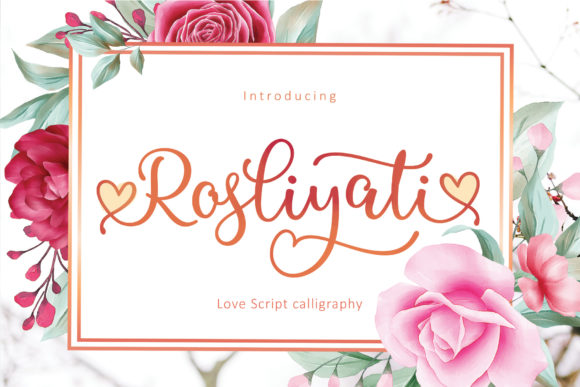
Introducing Rosliyati Font – A Poetic Script, Crafted with Love for Every Occasion
Immerse yourself in the beauty of Rosliyati, a captivating script font family designed to evoke a sense of charm and elegance in every design it graces. Inspired by the art of love, Rosliyati embodies romance, making it the perfect choice for wedding invitations, thank you cards, and heartfelt quotes. With its stunning presence, witness your designs come alive as Rosliyati's delicate strokes and flowing lines transform them into mesmerizing works of art.
Rosliyati's versatility extends beyond love letters, making it a versatile tool for greeting cards, logos, and business cards. Its handwritten touch adds a personal and inviting charm, captivating your audience with its exquisite aesthetics. The PUA encoding of this font unlocks a world of possibilities, allowing you to access all of its glyphs and swashes with ease, empowering you to create designs that are uniquely yours.
Experience the allure of Rosliyati's varying baseline, where each letter dances gracefully, creating a dynamic and visually appealing text. Its smooth lines glide effortlessly across the page, harmonizing with the gorgeous glyphs and stunning alternates, adding a touch of sophistication to your designs. With Rosliyati, your words will resonate with an emotional depth that captivates the hearts of your readers, leaving a lasting impression that lingers long after they've turned the page.
Unleash the power of Rosliyati and let your designs blossom with beauty and elegance. Its versatility knows no bounds, making it the perfect companion for designers seeking to create captivating wedding invitations, heartwarming thank you cards, or any project that calls for a touch of handwritten charm. With Rosliyati, the possibilities are endless, and your designs will undoubtedly leave a lasting impression on all who behold them.